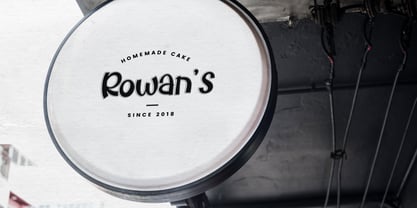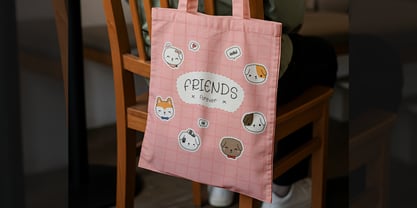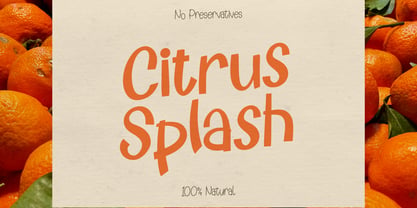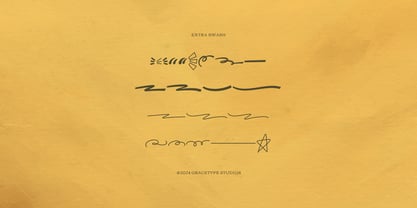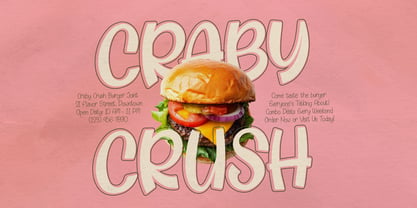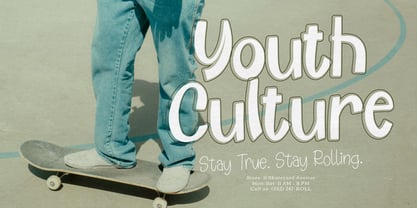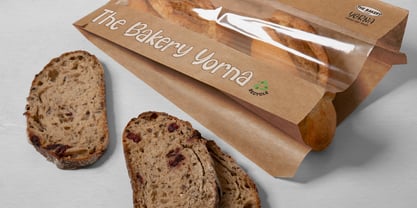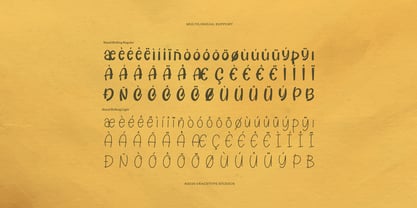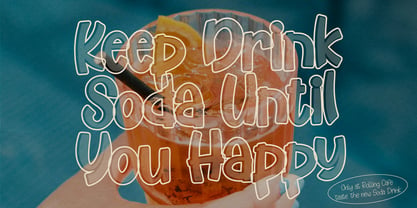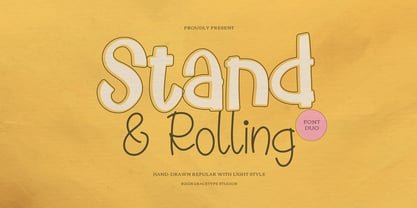
Stand Rolling Light
by Tini Fitriani
The Stand Rolling Light Font Family was designed by and published by Tini Fitriani. Stand Rolling Light contains 2 styles and family package options. More about this family
Stand Rolling | Hand Drawn Light Style, from Gracetypestudio, suitable for any projects such as: logos, branding projects, homeware designs, product packaging, mugs, quotes, posters, shopping bags, t-shirts, book covers, name card, invitation cards, greeting cards, label, photography, watermark, special events, and all your other lovely projects that need a Hand Drawn Light Style taste